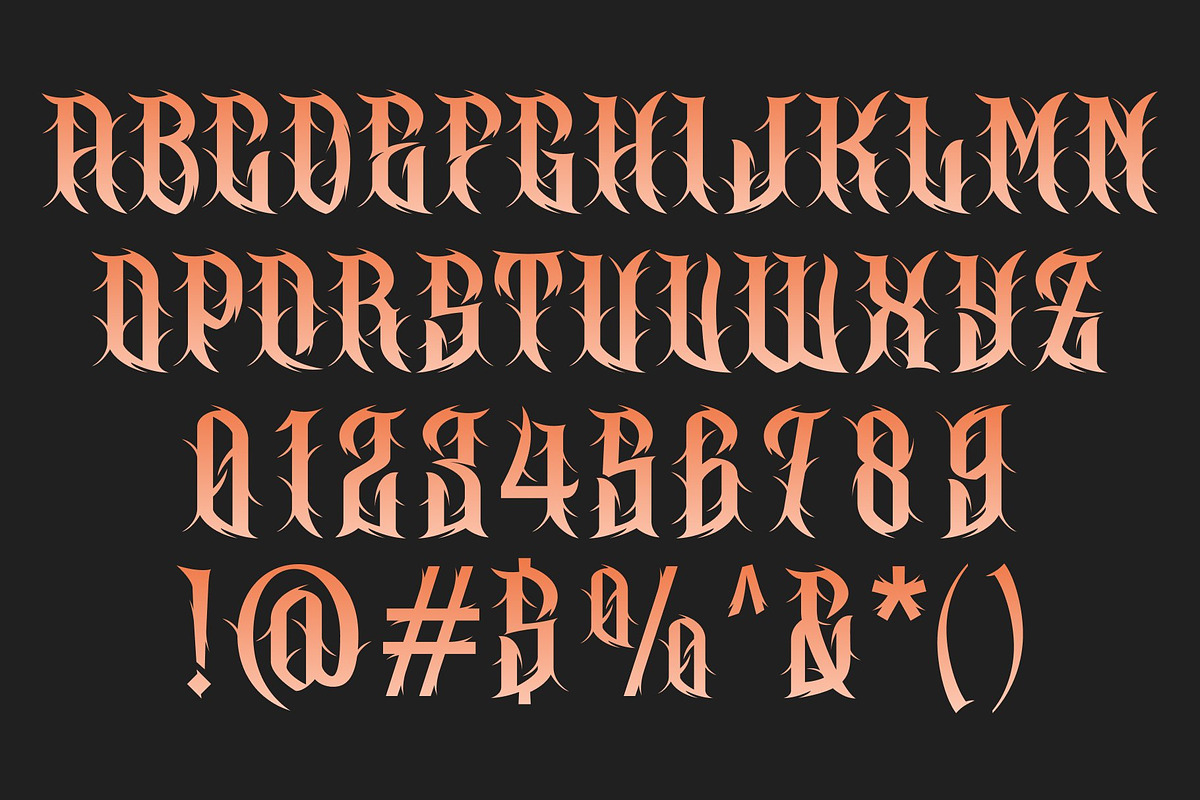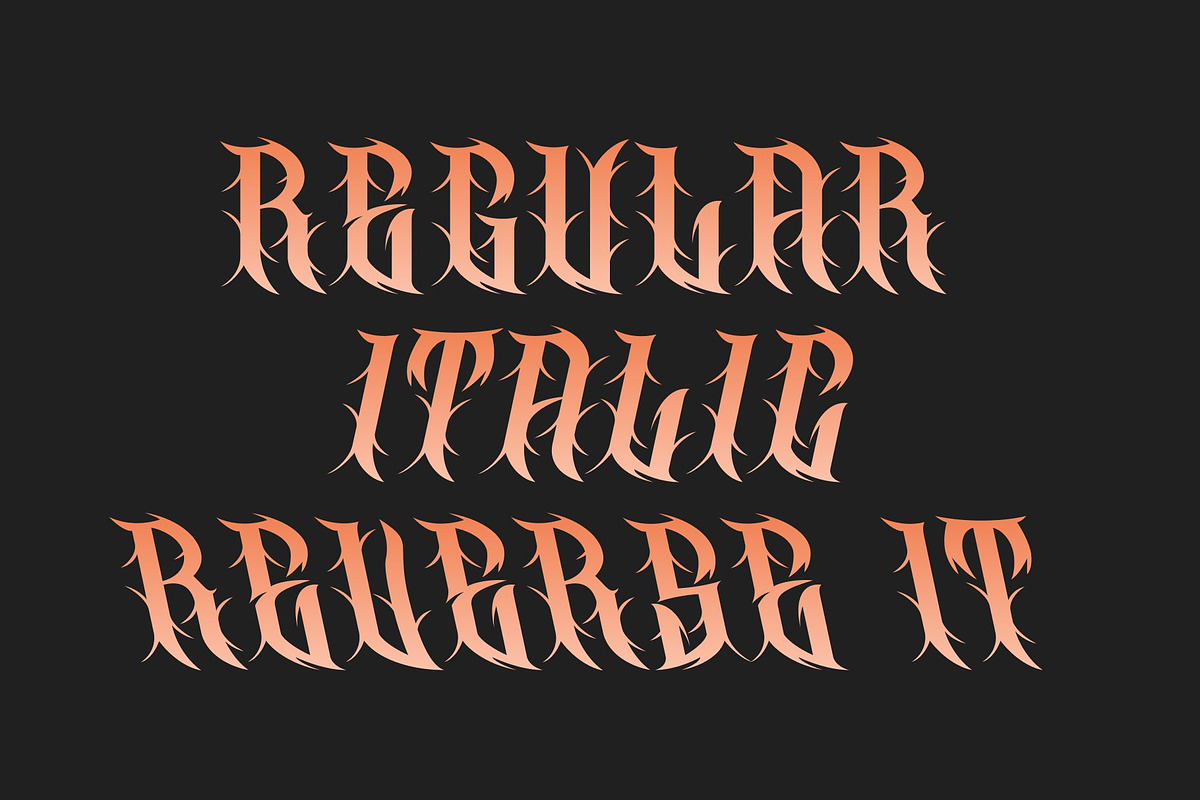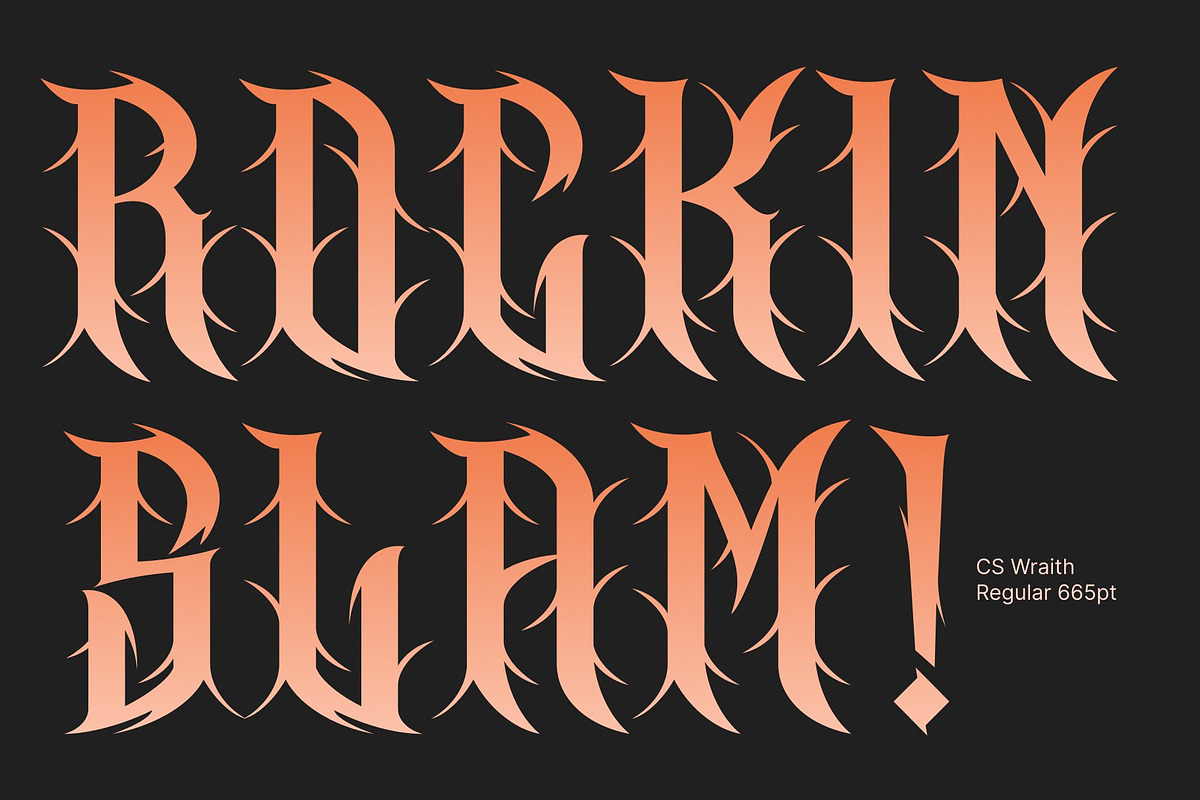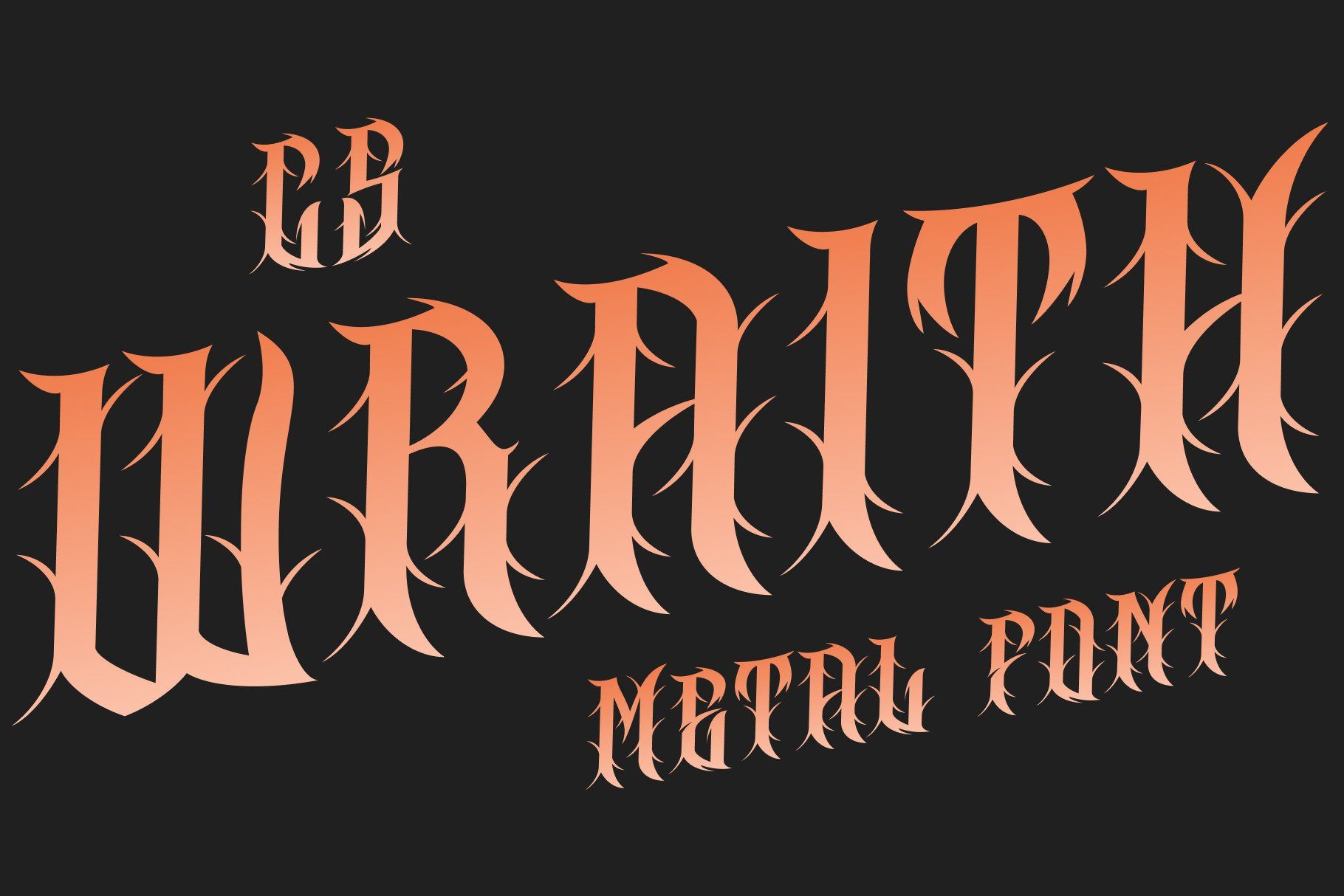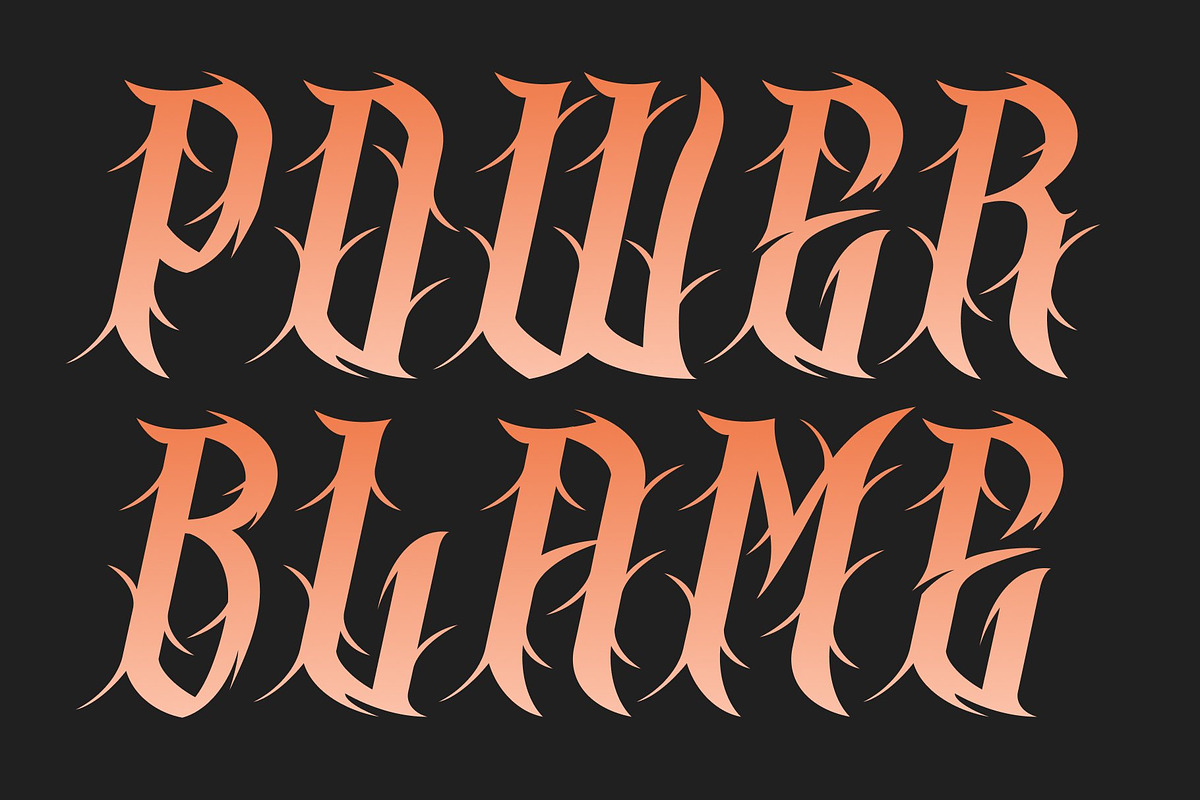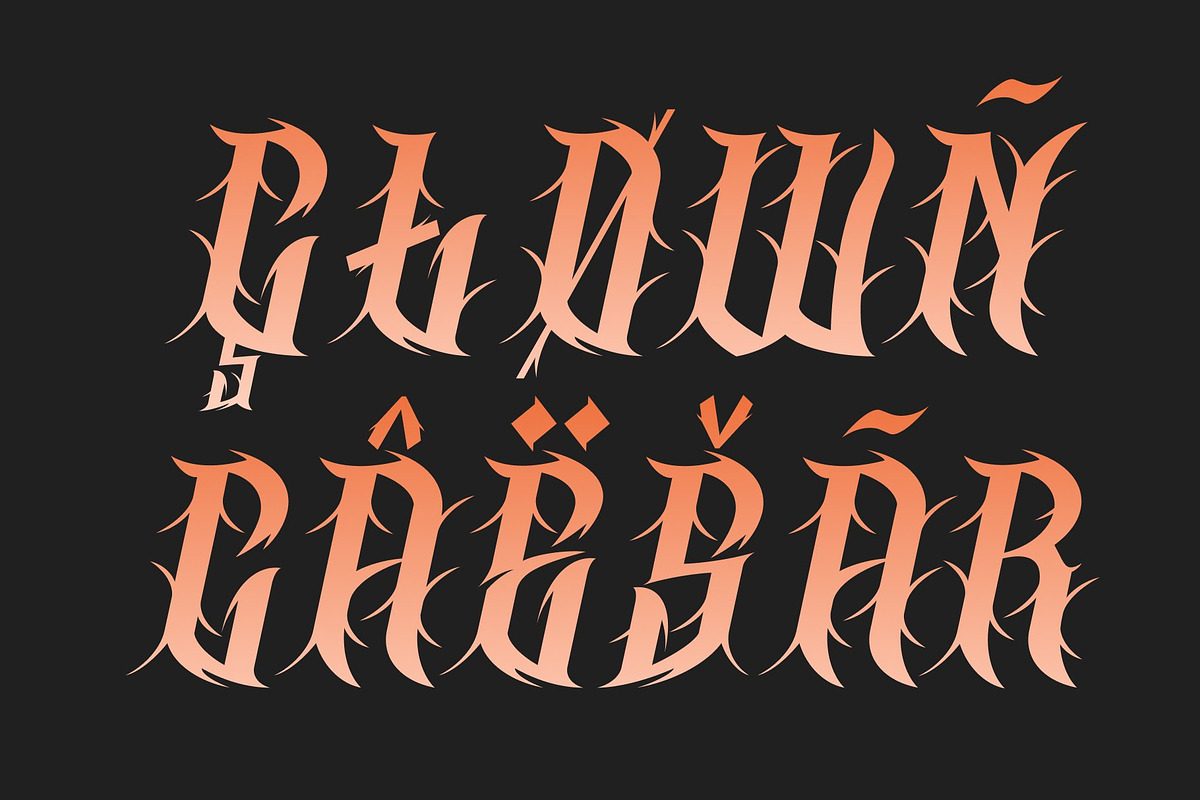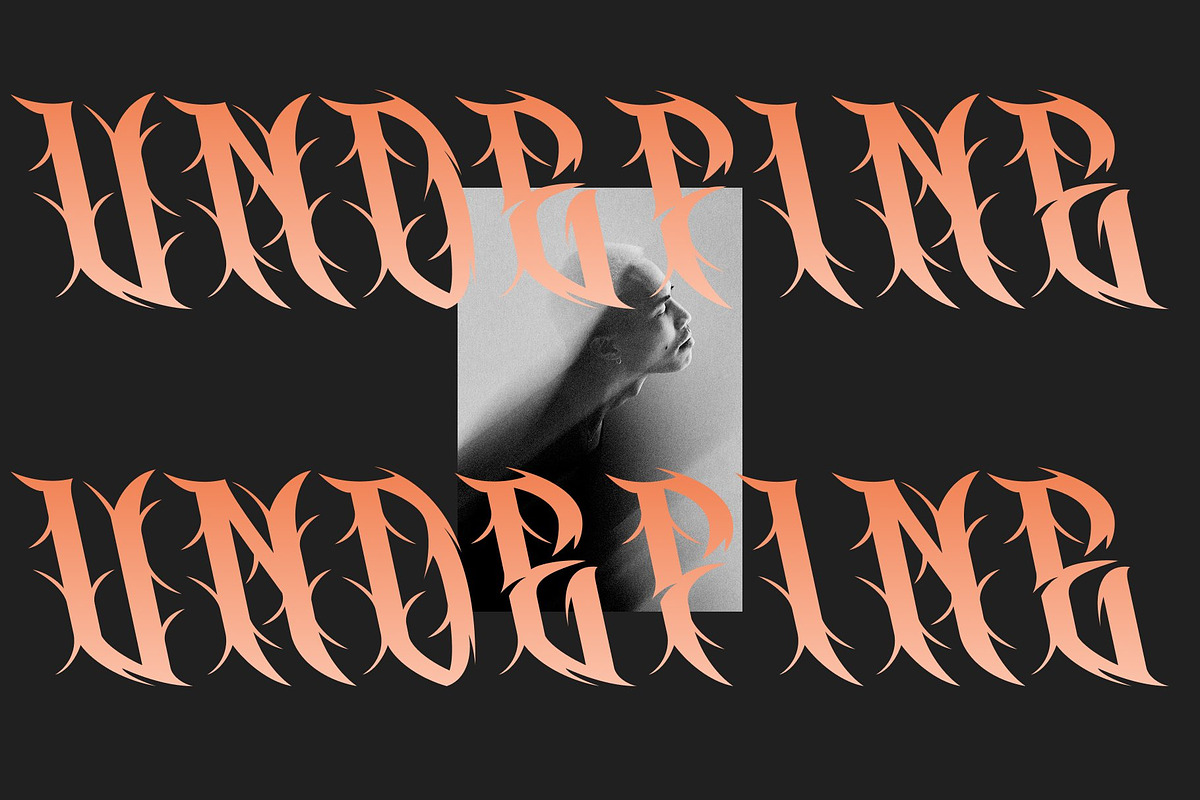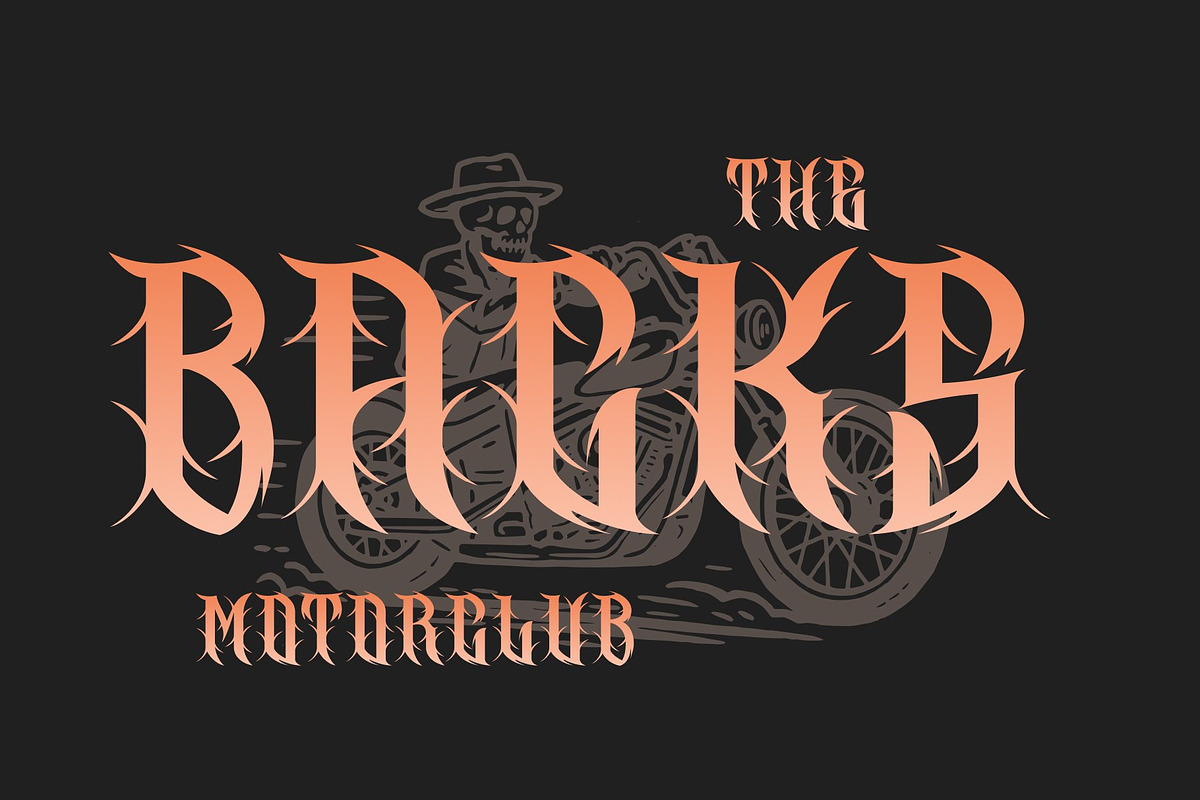
CS Wraith – Black Metal Font
CS Wraith – The Essence of Darkness and Power
Black Metal Display Font with Jagged Precision This is a raw and aggressive black metal display font forged from chaos and intensity. With its jagged spikes, uneven strokes, and fierce structure, this font embodies the unrestrained energy of extreme music. Each letter drips with attitude, making this font a perfect choice for projects that demand darkness, rebellion, and power.
Chaotic Strokes with an Unforgiving Edge Every curve and point in this font is designed to evoke tension and raw emotion. Its chaotic forms mirror the visual language of underground metal culture sharp, wild, and unapologetically bold. The distressed texture and irregular flow bring a handcrafted, visceral energy that turns any design into a powerful statement.
Perfect for Band Logos and Extreme Visuals Built for the world of metal and beyond, this font thrives in band logos, concert posters, album covers, and any design that channels aggression and darkness. Its brutal shapes and intense rhythm command attention, making it an ideal typographic weapon for rebellious and alternative aesthetics.
Dark, Fearless, and Uncompromising This font is not a font for the faint hearted it’s a declaration of defiance and creative chaos. Designed for those who embrace the raw and the unconventional, it captures the untamed spirit of black metal and underground art. Use this font to unleash bold emotion and give your designs a dark, unforgettable edge.